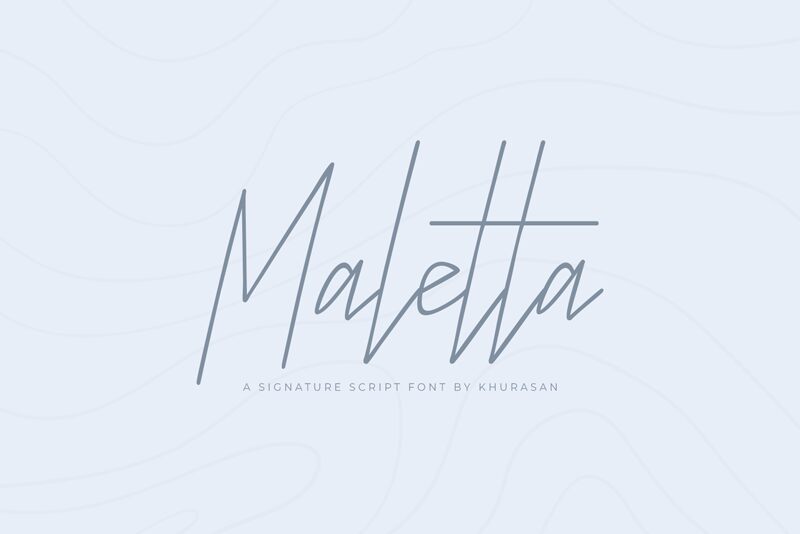
Maletta
Maletta, designed by Khurasan, is a semi-light handwritten font that exudes a blend of casual elegance and personal touch. Its sweeping curves and fine lines mimic the nuances of human handwriting, creating an intimate connection with the reader. The aesthetic appeal of Maletta lies in its organic structure and subtle irregularities, which provide a sense of authenticity and warmth.
The style of Maletta makes it an excellent choice for projects requiring a touch of sophistication without sacrificing approachability. From personalized stationery to branding elements that crave a bespoke feel, this font's fluidity ensures versatility across various mediums. Whether gracing the pages of a novel or adding character to web design, Maletta's charm enhances the narrative it accompanies.
In visual terms, Maletta's semi-light weight offers a delicate balance; it is strong enough to stand out yet light enough to maintain an airy presence on the page. This balance makes it particularly suitable for modern designs where readability is key but heavy typographic density is avoided.
Overall, Maletta serves as both a functional tool for designers and a vessel for storytelling, offering its unique handwritten essence as an invitation to engage with content in a more personal way.